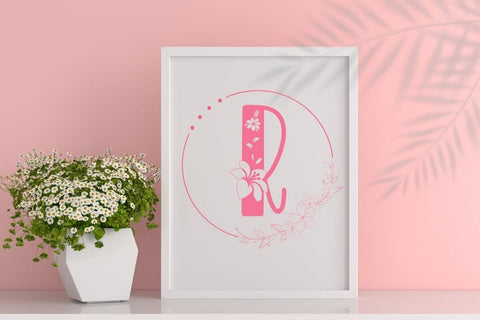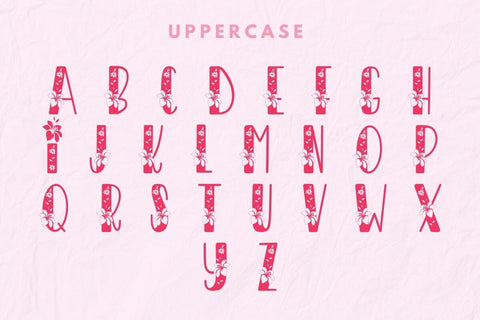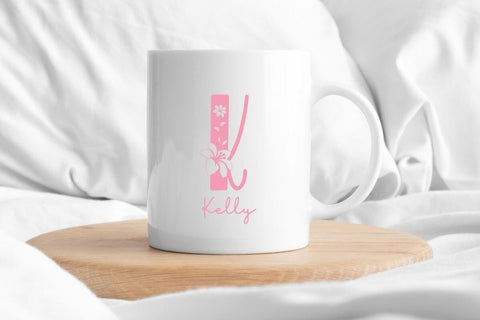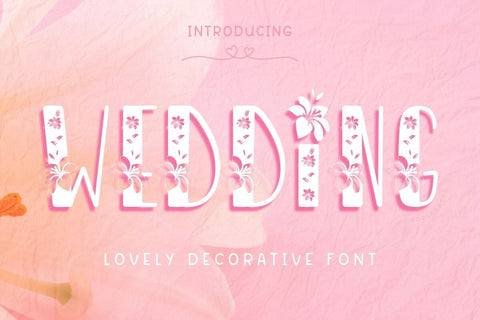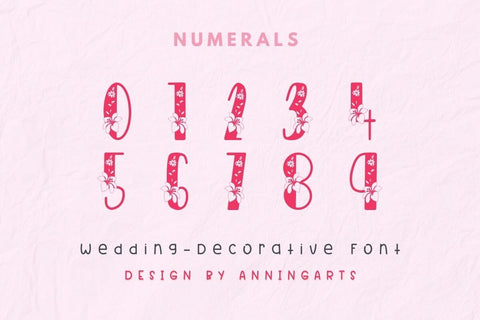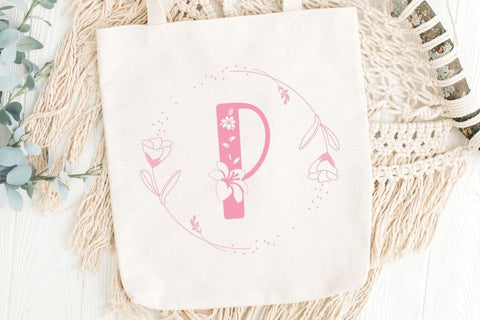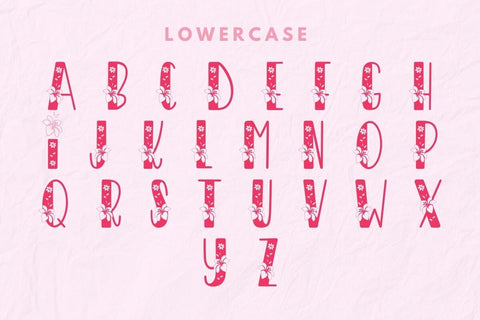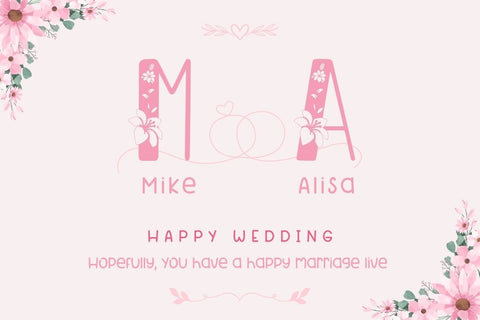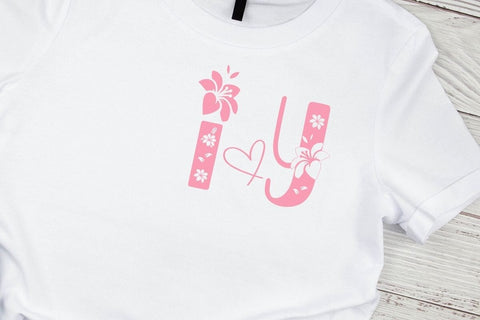
Wedding - Decorative Font
Wedding is a lovely decorative font. Each letter is adorned with floral patterns and subtle decorative elements, which add a touch of elegance and charm. The font has a delicate and romantic style. Perfect for creating a wide variety of new designs to match products such as banners, content, mugs, cards, shirts, stationery, social media posts, and more!